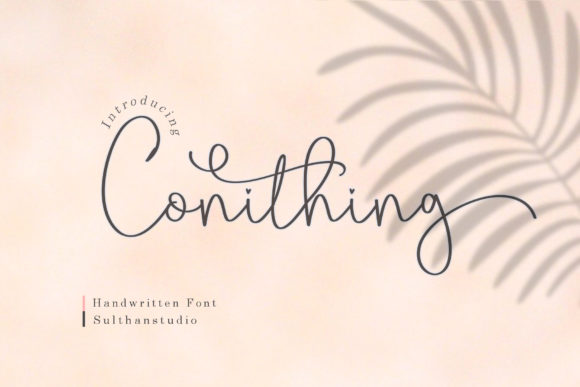
Step into a world of elegance and charm with Conithing Font, a captivating script font that exudes beauty and finesse. Inspired by the delicate strokes of calligraphy, Conithing Font brings a touch of sophistication and romance to your digital creations. Its graceful curves and flowing lines dance across the page, creating a visual masterpiece that captivates the eyes.
Conithing Font is the perfect choice for designers, bloggers, and content creators seeking a font that speaks volumes. Its versatility extends to a wide range of projects, from wedding invitations and thank-you cards to logos, business cards, and social media posts. Whether you're crafting a heartfelt message, sharing a memorable quote, or designing a stunning brand identity, Conithing Font elevates your words with its timeless appeal.
With Conithing Font, you'll discover a treasure trove of creative possibilities. Its PUA encoding grants you effortless access to a diverse collection of glyphs and swashes, allowing you to add intricate details and flourishes to your designs. Experiment with different combinations to create unique and eye-catching compositions that leave a lasting impression.
Unleash your creativity and let the flowing lines of Conithing Font guide you towards captivating designs. Experience the joy of creating heartfelt messages, stunning logos, and captivating social media posts that resonate with your audience. Let Conithing Font be your creative companion, transforming ordinary words into extraordinary works of art.